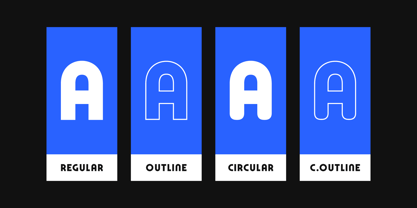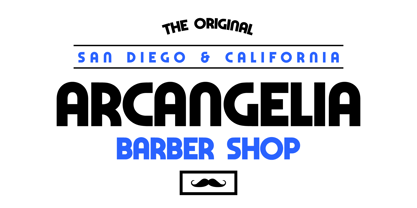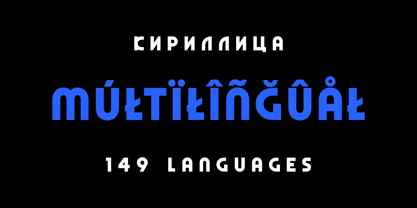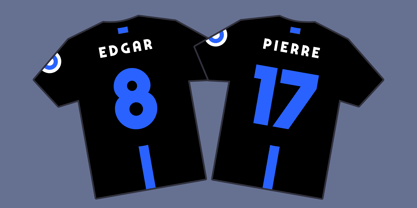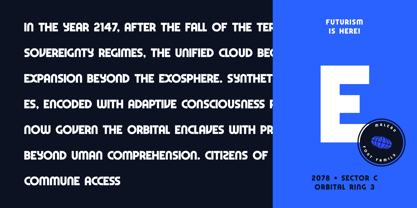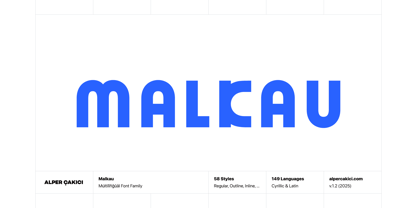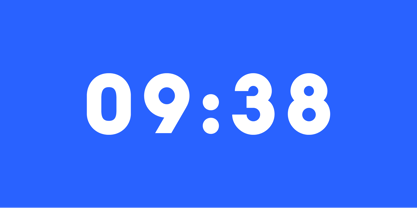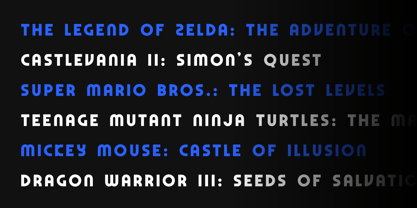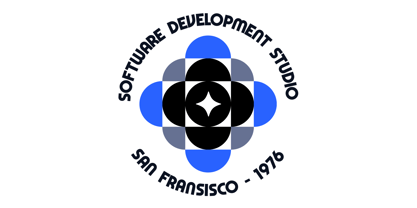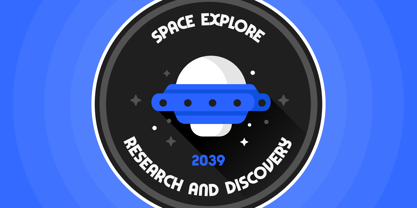
Malkau
The Malkau Font Family was designed by Alper Çakıcı and published by AlperCakici. Malkau contains 58 styles and family package options. More about this family
Malkau is a geometric display typeface combining the warm, expressive character of the 1970s with a clean and modern futuristic aesthetic. Its bold curves, refined proportions, and confident rhythm give designers a distinctive voice for branding and display work. Crafted with precision and visual balance, Malkau performs beautifully in logos, titles, posters, packaging, editorial design, digital interfaces, and any project that requires a strong, memorable identity. Its retro-futuristic feel brings both nostalgia and fresh energy to contemporary design. Key Features • Geometric structure with smooth, modern curves • Retro 70s influence blended with minimalist futurism • Strong performance in logos, logotypes, and branding systems • Optimized for both print and digital use • Extended Latin support for 149 languages Language Support Supports 149 languages from Afrikaans and Albanian to Welsh and Zulu.